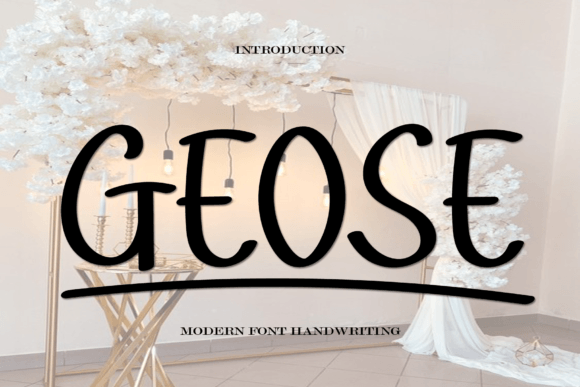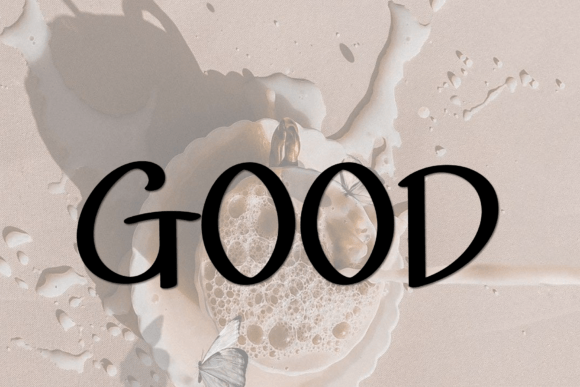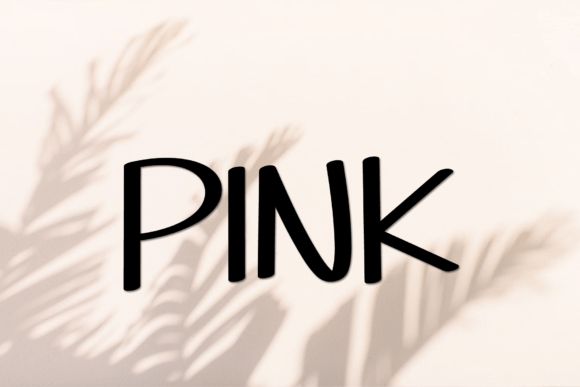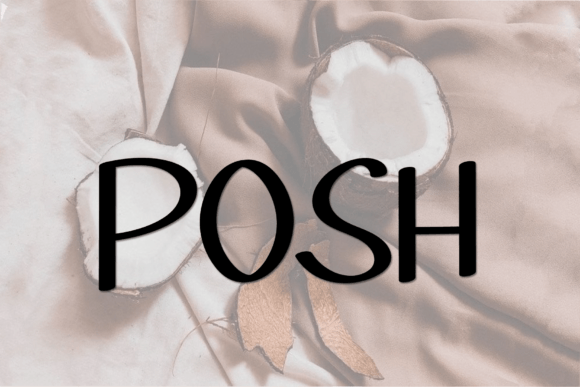
What Is Geose Font?
Geose is a classic handwritten font designed to bring a sense of simplicity and warmth to your creative projects. Its clean lines and natural flow make every design feel personal and welcoming. Because it’s crafted with care, Geose is a reliable choice for both personal and professional use.
You’ll see how easily it transforms your ideas into timeless, polished creations.
Geose is a versatile font that works beautifully across many design applications. For example, it’s perfect for crafts. Whether you’re designing product labels, handmade packaging, or stickers, Geose adds a touch of authenticity.
Additionally, it fits perfectly in digital design projects. From social media posts to website banners, this font helps your visuals look clean and approachable.
It’s also great for presentations. The smooth and legible letterforms make sure your slides remain clear and professional while feeling friendly.
When you create greeting cards or invitations, Geose brings a warm, thoughtful feel that suits birthdays, holidays, and special occasions.
Moreover, it works well for branding and logos. Even minimalist layouts look sophisticated and fresh with this handwritten style.
Why Should You Choose Geose Font?
There are plenty of reasons to consider Geose for your next project. First, it’s easy to read in any size. Each letter stays clear and balanced, whether you’re working on large headlines or small text blocks.
Also, Geose pairs nicely with clean sans-serif or serif fonts, so you can build cohesive designs without extra effort.
Designers love how it looks polished from the first use, saving time while delivering professional-quality results.
Geose Font adds a calm, friendly energy to any project. For example, when you want your designs to feel natural and approachable, this font makes it easy.
Even simple layouts look more inviting with Geose’s smooth, balanced letters. Whether you’re creating social media graphics, product packaging, or invitations, your work will stand out in a positive way.
Using a premium handwritten font also shows your dedication to detail and quality, which helps you build trust and credibility with your audience.
Geose Font is more than just a typeface—it’s a creative tool that helps you share your ideas with style and clarity. From crafts and greeting cards to branding and presentations, this font adapts easily and adds a timeless handwritten touch to any design.